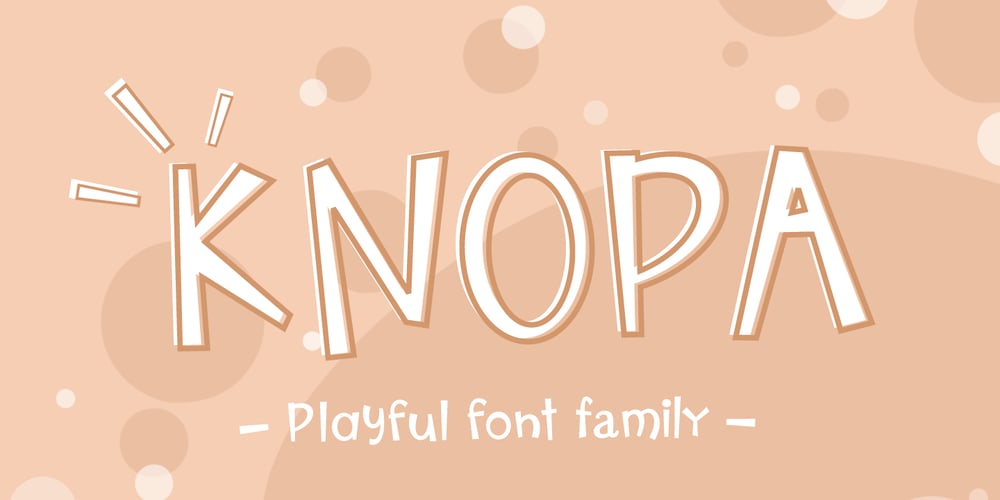
Knopa Font Family was designed by Pavel Larin and published by Larin Type Co. Knopa contains 6 styles and family package options. KNOPA This is a fun and playful font family, which will perfectly fit into children’s projects or funny modern designs and logos, with it you can make playful designs by changing styles and combining them with each other. This font has three weights ( light, regular, and bold ) and an outline style for each weight.